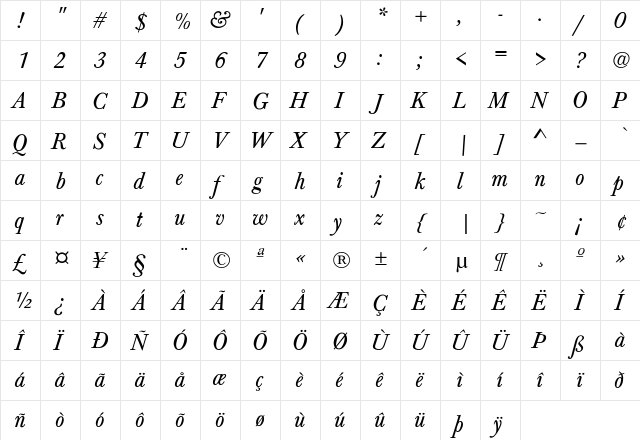
Bartholomew-Normal-Italic Regular
Design Context for Bartholomew-Normal-Italic Typeface
Bartholomew-Normal-Italic is a composed and adaptable typeface that performs quietly and consistently across a wide range of design contexts. The dynamic lean of this cut emphasises speed and emphasis in any layout.
Pro Tip: Try Bartholomew-Normal-Italic for annotation and caption copy alongside an upright companion — the contrast in angle creates a dynamic but ordered typographic system.